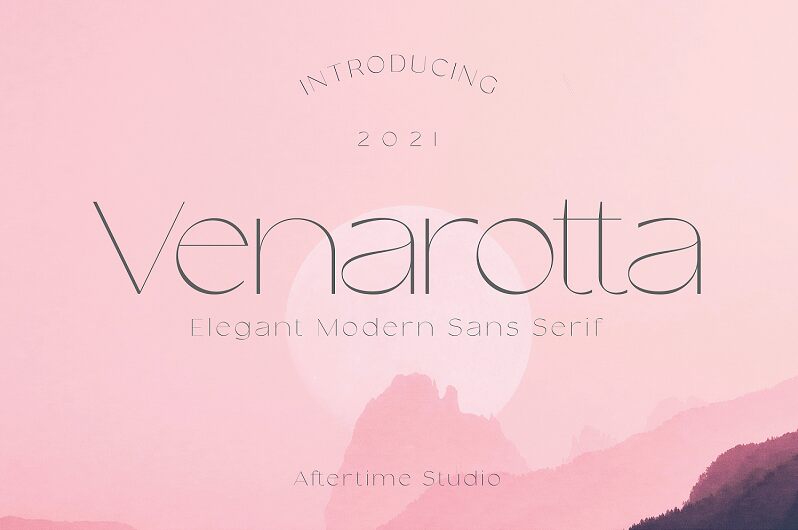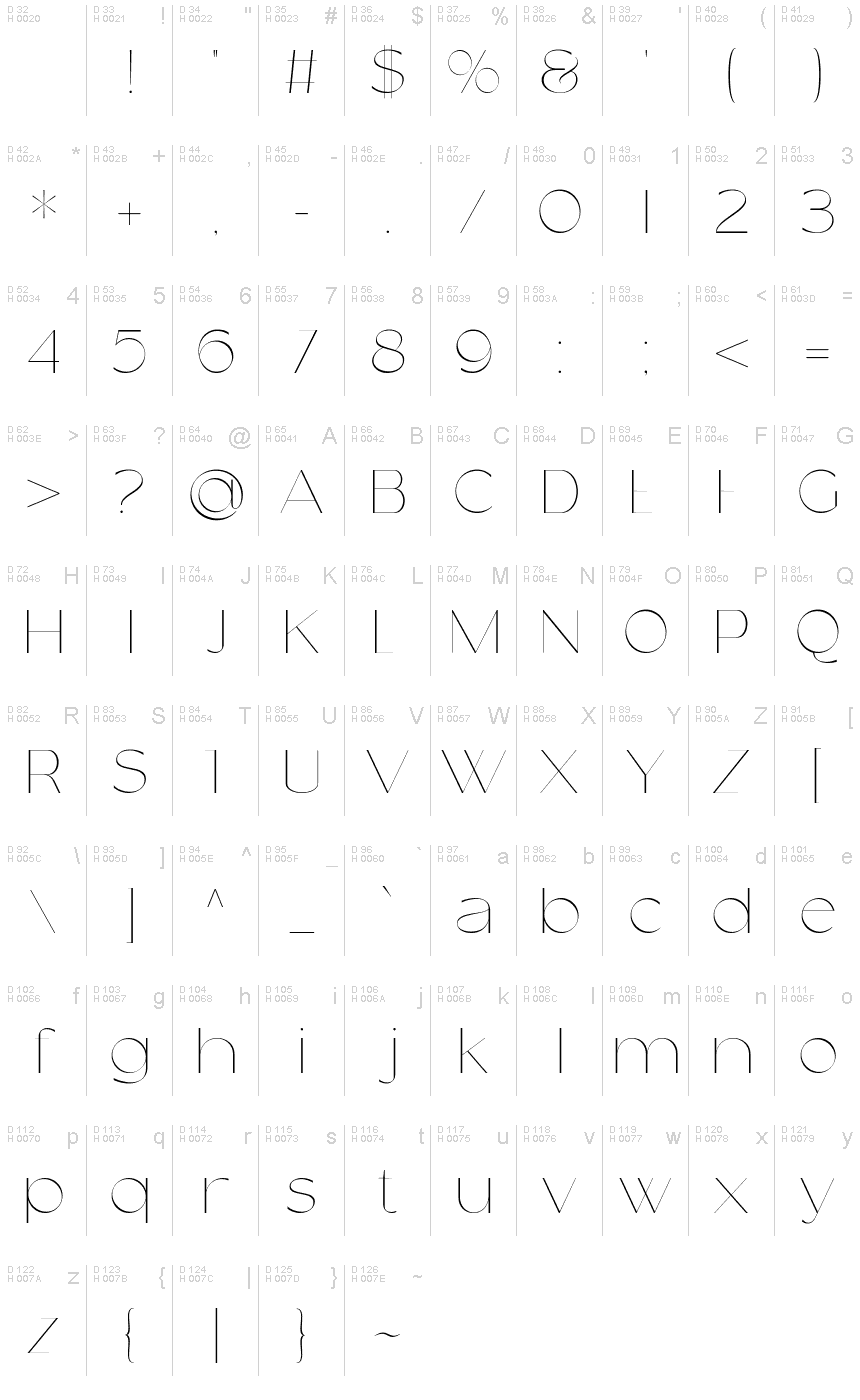
Venarotta Regular
Venarotta by Aftertime Studio is a modern and minimalist sans serif font with an extra-light weight and semi-expanded width. This font is perfect for projects that require a clean and contemporary look, such as tech websites, fashion blogs, or branding materials for startups. Its simple yet elegant design makes it suitable for both headlines and body text, while its semi-expanded width ensures legibility even at smaller sizes. Venarotta's versatility makes it an excellent choice for various projects, from editorial design to packaging or product labels. Try it out today and elevate your designs with this stunning typeface!